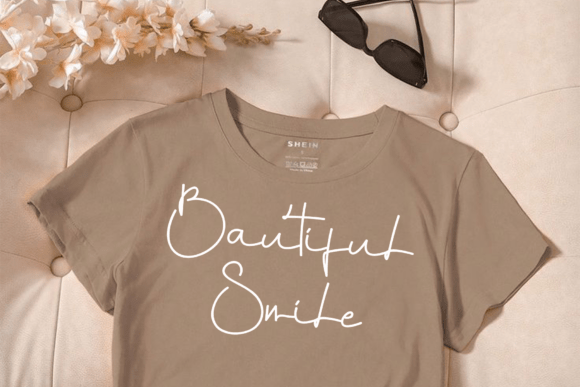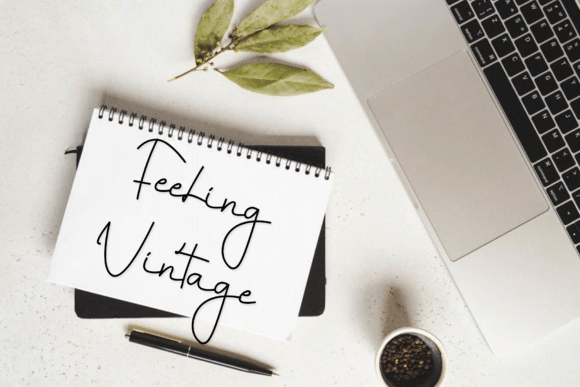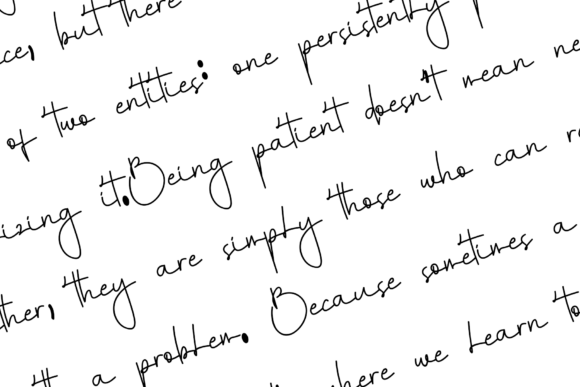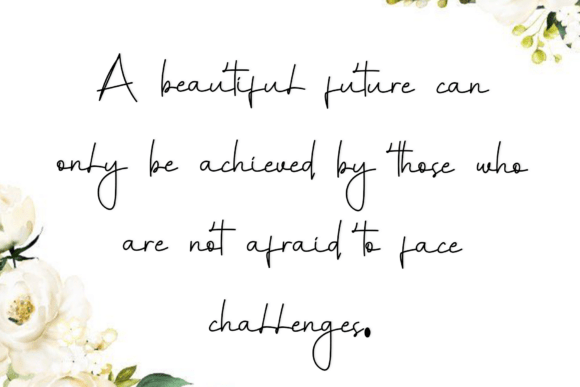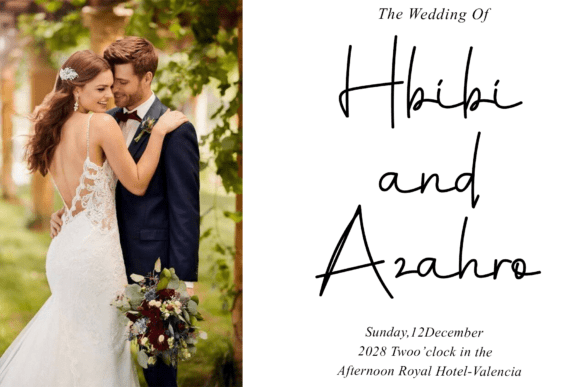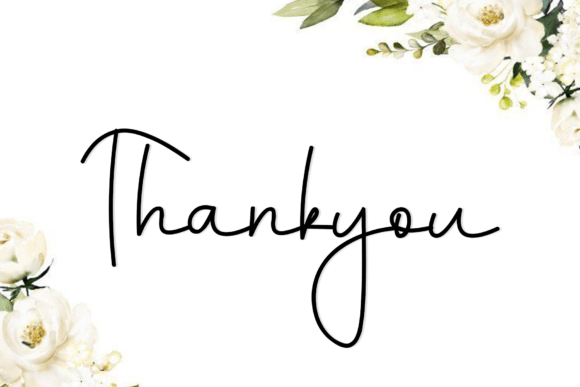
The Bathine Font: A Breath of Fresh Air for Your Designs
Described as a “unique and professional” addition to the modern handwritten collection, Bathine is designed to bring clarity and sophistication to your designs. Its tall, thin strokes and subtle, airy slant make it an ideal choice for travel photography, outdoor gear branding, and sophisticated web design.
- ✨ Clean and approachable style: Bathine’s refined aesthetic feels fresh and modern, making it perfect for designs that need a touch of elegance.
- ✅ Versatile: This font works beautifully for both digital and print projects, from social media graphics to brochures and posters.
- 💡 OpenType features: Bathine supports a range of OpenType features, including stylistic alternates and glyphs, giving you plenty of creative options.
While Bathine is an excellent font, there are a few things to keep in mind: ⚠️
- 🤔 Legibility at small sizes: While Bathine is generally easy to read, it can become a bit tricky at very small font sizes (below 10pt). Make sure to test it thoroughly in your design.
- ⚠️ Limited language support: Bathine primarily supports English and other Western European languages, so if you need to work with non-Latin scripts, you might need to look elsewhere.
The Story Behind Bathine: Designer Inspiration
While the actual designer behind Bathine remains a mystery, it’s easy to imagine that they were inspired by the crisp, clean lines of modernist design. Perhaps they spent countless hours hiking through the mountains, appreciating the elegance of nature and the beauty of simplicity. Whatever the inspiration, Bathine is a testament to the power of thoughtful, well-crafted typography.
Q: What type of projects is Bathine best suited for?
A: Bathine is ideal for travel photography, outdoor gear branding, sophisticated web design, and any project that requires a clean, elegant aesthetic.
Q: Does Bathine support OpenType features?
A: Yes, Bathine supports a range of OpenType features, including stylistic alternates and glyphs, giving you plenty of creative options.
Q: Is Bathine suitable for body text?
A: While Bathine is generally easy to read, it’s best suited for headlines, titles, and short paragraphs. For longer body text, you may want to consider a more traditional serif or sans-serif font.